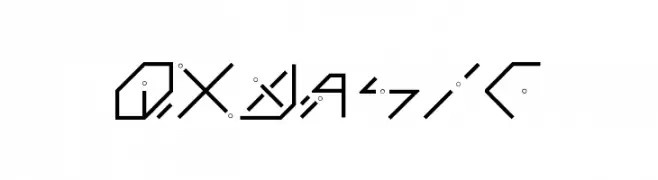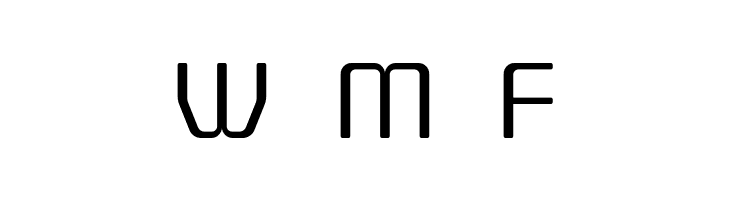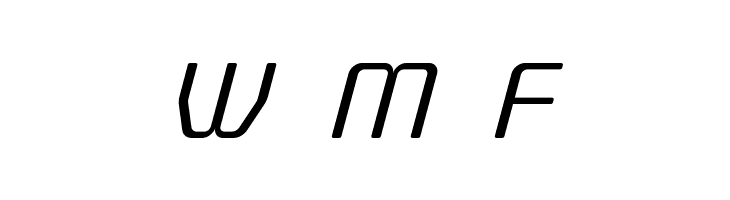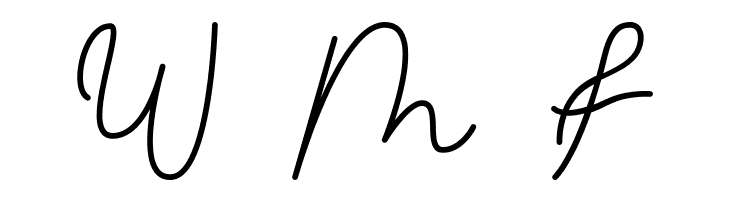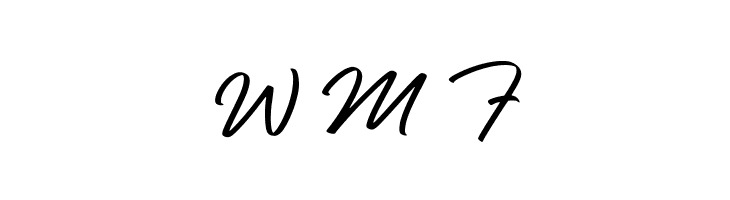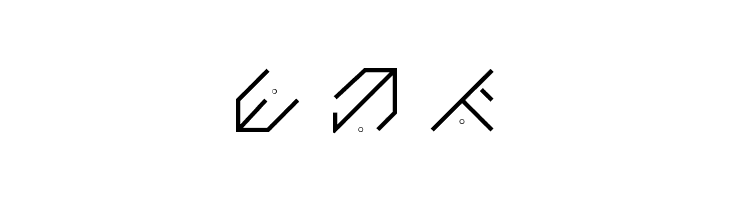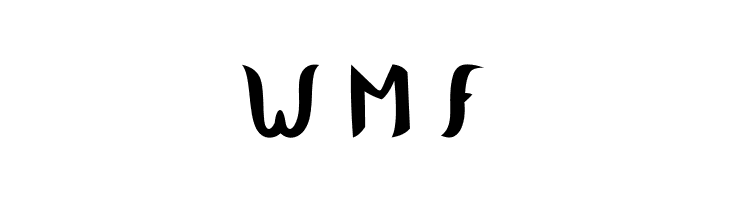
A modern, italicized font with rounded edges and consistent line thickness.
A modern, geometric font with rounded edges and consistent character width.
A futuristic, geometric font with angular lines and a tech-inspired design.
A playful, bold font with curvy, high-contrast letterforms.
A bold, angular font with a dynamic and modern style.
A playful handwritten font with smooth, rounded strokes and a casual, friendly appearance.
A flowing, cursive font with elegant, interconnected letters and a handwritten style.
A playful, handwritten font with a whimsical and approachable style.
A modern, cursive font with flowing, connected letters.
A lively, expressive handwritten font with flowing cursive letterforms.